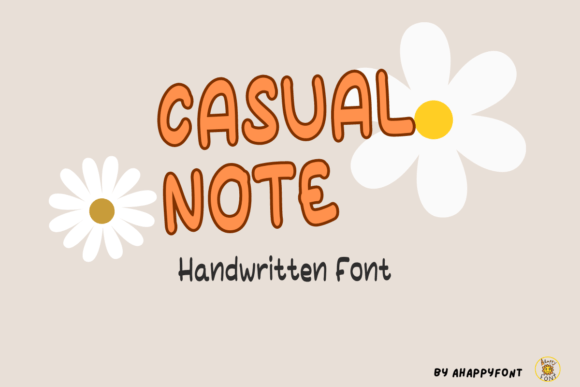
Have you ever stared at a blank page, trying to conjure up the perfect idea, only to have it hit you in a moment of pure inspiration? Maybe it’s while doodling in a notebook, or scribbling down a quick thought on a sticky note. Whatever the spark, it’s moments like these that remind us why we love to create.
That’s where Casual Note Font comes in – a fun and quirky handwritten font designed to capture the essence of those spontaneous moments. This charming font is perfect for adding a personal touch to your creative projects, from social media graphics to greeting cards, and everything in between.
As a designer, you know the value of a well-chosen font. With Casual Note Font, you’ll be able to infuse your work with a sense of playfulness and whimsy that’s sure to delight your audience. Whether you’re a seasoned pro or just starting out, this font is sure to become a trusted companion in your creative journey.
Casual Note Font Key Features
- Font Family: Casual Note is a unique, hand-drawn font family designed for note-taking and everyday use.
- Unique Characteristics: Casual Note features a distinctive, handwritten style with subtle imperfections and variations in letterforms, giving it a personal touch.
Casual Note Font Review
I recently had the chance to work with the Casual Note Font, and I have to say, it’s a unique and interesting font. Here’s my honest take on what works well and what doesn’t.
- The Casual Note Font is perfect for creating a relaxed, handwritten feel in your designs. It’s great for quotes, captions, and other text elements where you want to convey a sense of informality.
- The font is highly legible, even at smaller sizes, making it suitable for body text and other areas where readability is crucial.
- The font’s imperfections and quirks add a touch of personality to your designs, which can be a great way to differentiate your work from more polished, corporate fonts.
- The Casual Note Font can be a bit too casual at times, which may not be suitable for all projects or brands. If you’re looking for a more professional or formal font, you may want to consider other options.
- The font’s irregularities can also make it more difficult to work with, especially if you’re trying to align text or create a uniform look.
The Casual Note Font is a great choice for designers who want to add a touch of personality and whimsy to their work. While it may not be suitable for all projects, it’s a versatile font that can be used in a variety of contexts. With its unique feel and high legibility, it’s definitely worth considering for your next design project.
The Casual Note Font is perfect for creating:
1. Handwritten-style social media posts and captions.
2. Journaling and diary entries.
3. Creative quotes and phrases.
4. Casual, conversational text in presentations and reports.
1. Experiment with different font sizes and styles to achieve the desired effect.
2. Use the Casual Note Font in combination with other fonts to create a unique and eye-catching design.
3. Don’t be afraid to add some imperfections and imperfections to give your design a more authentic, handwritten feel.
Q: Can I customize the Casual Note Font to fit my design needs?
While the Casual Note Font is designed to be a high-quality, ready-to-use font, you can still customize it to some extent using font editing software. However, be aware that significant modifications may affect the font’s readability and overall aesthetic. If you need custom font solutions, consider consulting a professional font designer or purchasing a custom font service.